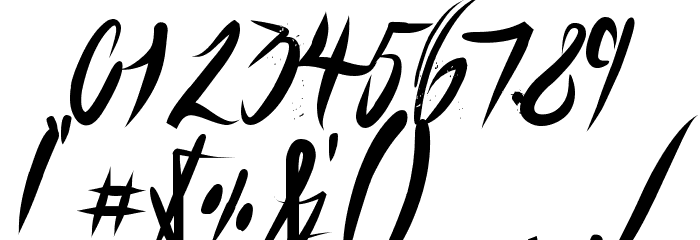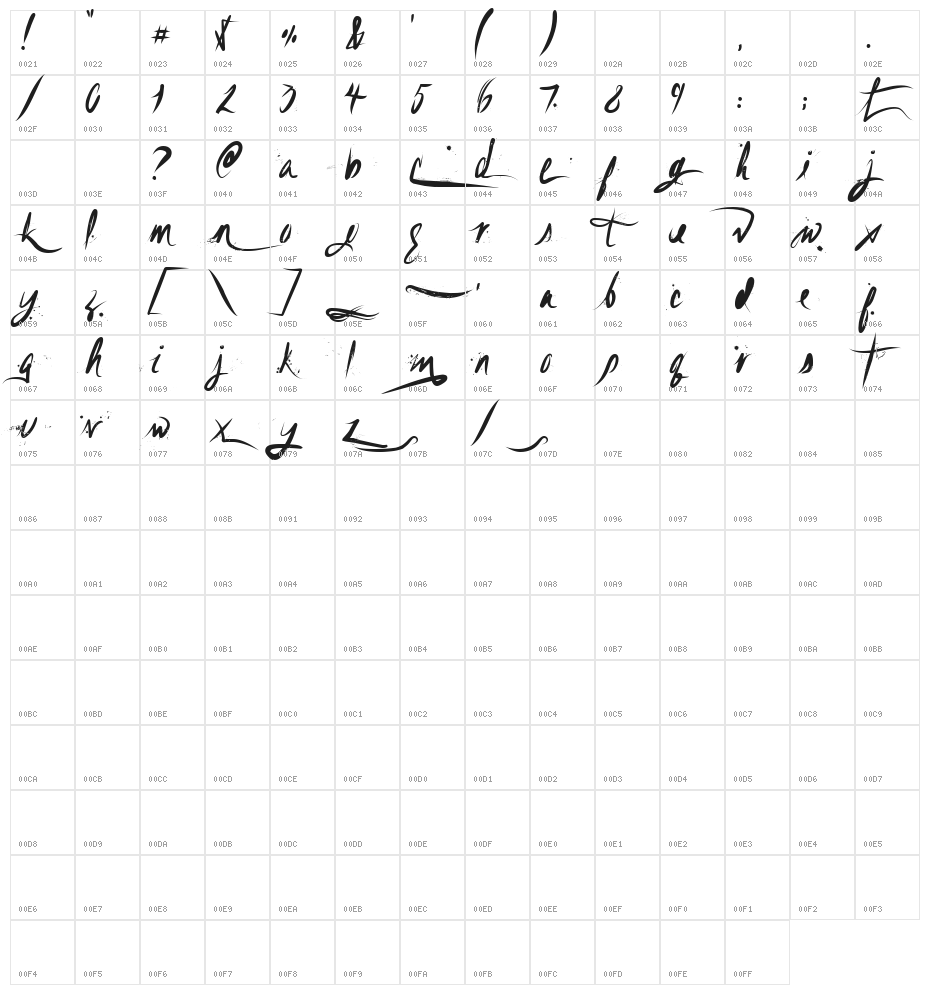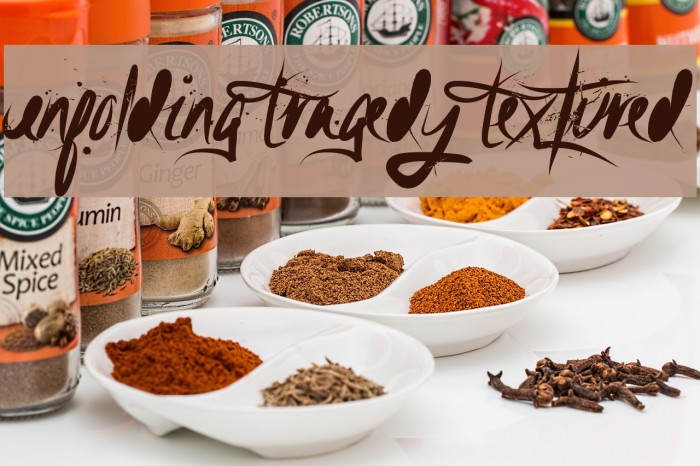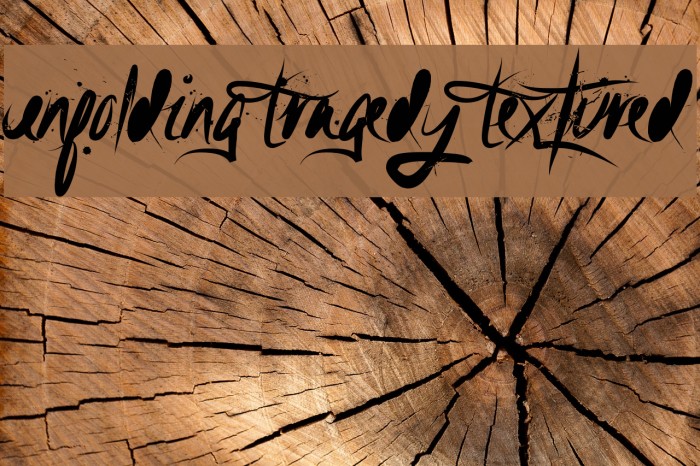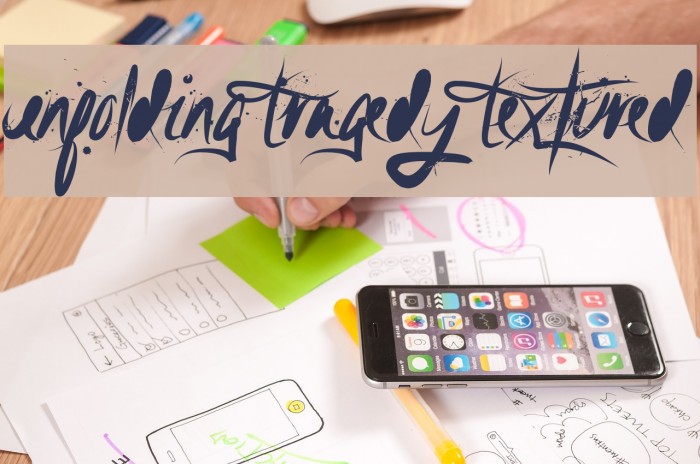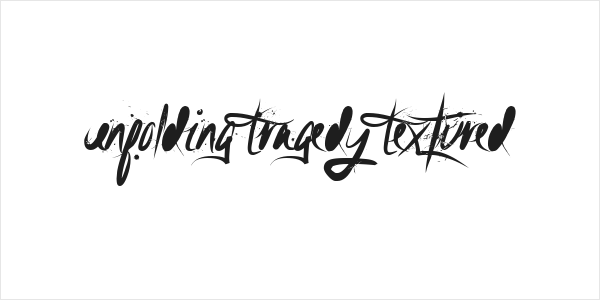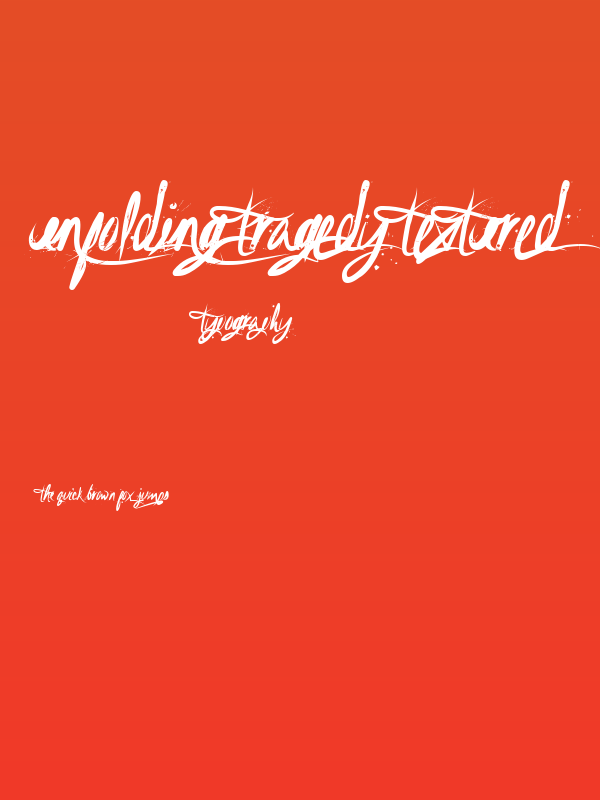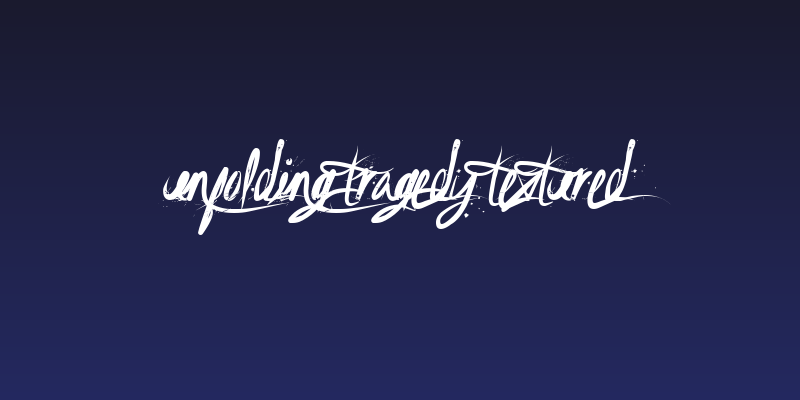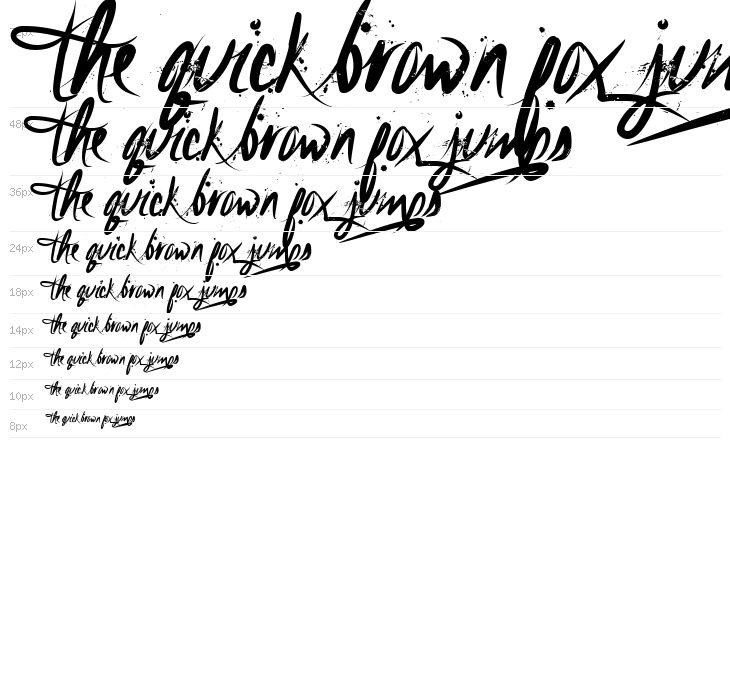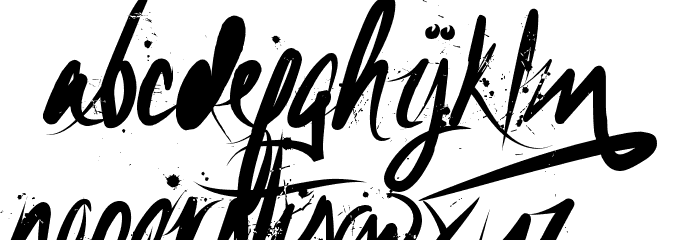
Unfolding Tragedy Textured Font
Unfolding Tragedy Textured Description
This font exudes a dramatic and artistic flair, characterized by its bold, sweeping strokes and textured appearance. The letters are crafted with an expressive, hand-drawn style that incorporates splatters and irregularities, giving it a raw and dynamic feel. The uppercase and lowercase letters flow with a sense of movement, while the numbers and special characters maintain the same energetic and textured quality. This font is perfect for projects that require a touch of creativity and boldness, making it ideal for artistic designs, posters, and album covers.
| Proposed Projects | Ideal for artistic designs, posters, album covers, and creative branding. |